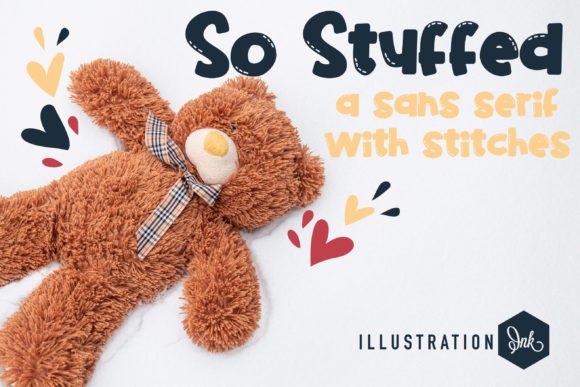
Step into the world of So Stuffed, a display font that sparks joy and whimsy at first sight. This handcrafted sans serif grabs attention with its charming style, perfect for any project seeking a touch of playful character.
With its delightful chubby letters and intricate stitch marks, So Stuffed embodies a playful spirit that captivates audiences. It is more than a font; it's a work of art, lovingly crafted by the talented team at Illustration Ink.
So Stuffed excels in children-related designs, evoking the innocence and wonder of childhood. It effortlessly transforms ordinary words into whimsical messages, perfect for nursery wall art, birthday invitations, greeting cards, and more.
Embrace the boundless creativity of So Stuffed and elevate your designs to new heights. It's the perfect choice for adding a touch of whimsy to your next project, leaving a lasting impression that is sure to captivate and enchant. Whether you're a graphic designer, crafter, or simply a lover of unique fonts, So Stuffed is destined to become your new favorite.
Unlock the magic of So Stuffed today and infuse your designs with a dose of pure delight. Let your imagination run wild as you create enchanting graphics that speak to the child within us all. Get ready to embrace the endless possibilities of So Stuffed and embark on a design journey filled with joy, creativity, and heartfelt connections.